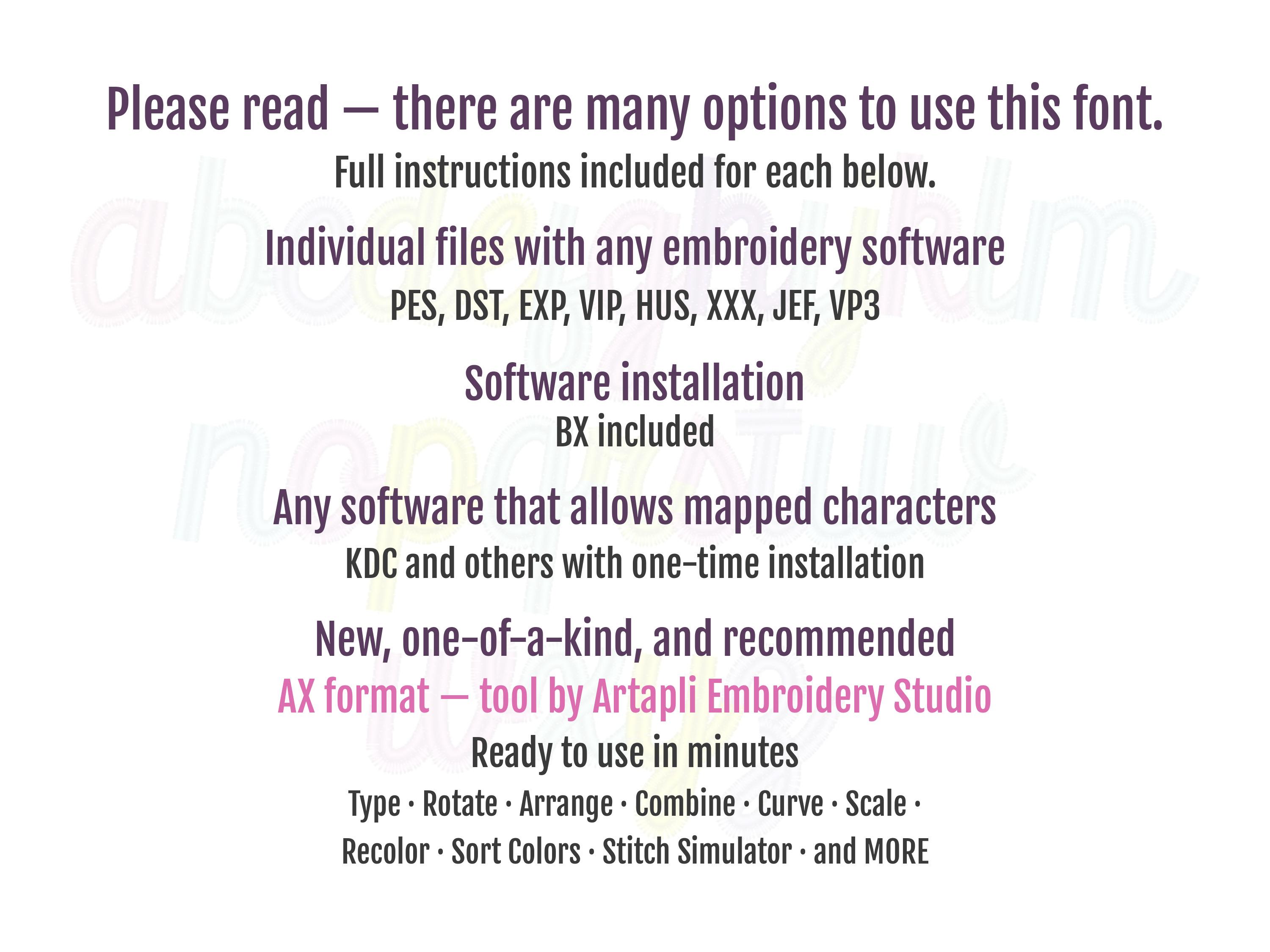
Connected Fringed FONT alphabet letters machine embroidery designs in assorted sizes chenille girly pretty fluffy letters, BX
You may fringe all letters. Please view images on how-to.
It is easy. Embroider the design as usual. Large satin stitches will be loose. Once you complete stitching the design, turn over your hoop to see a reverse side, and cut the bobbin thread, along the large satin stitches. Turn the hoop back over and fluff up the "fringe" around. Here is the video on my YouTube channel of my other fringed font, but the technique is the same:
The design has a special seam holding the fringe in place. 100 % safe to wash.
Entire alphabet A-Z uppercase and lowercase, and special mark "dash" -